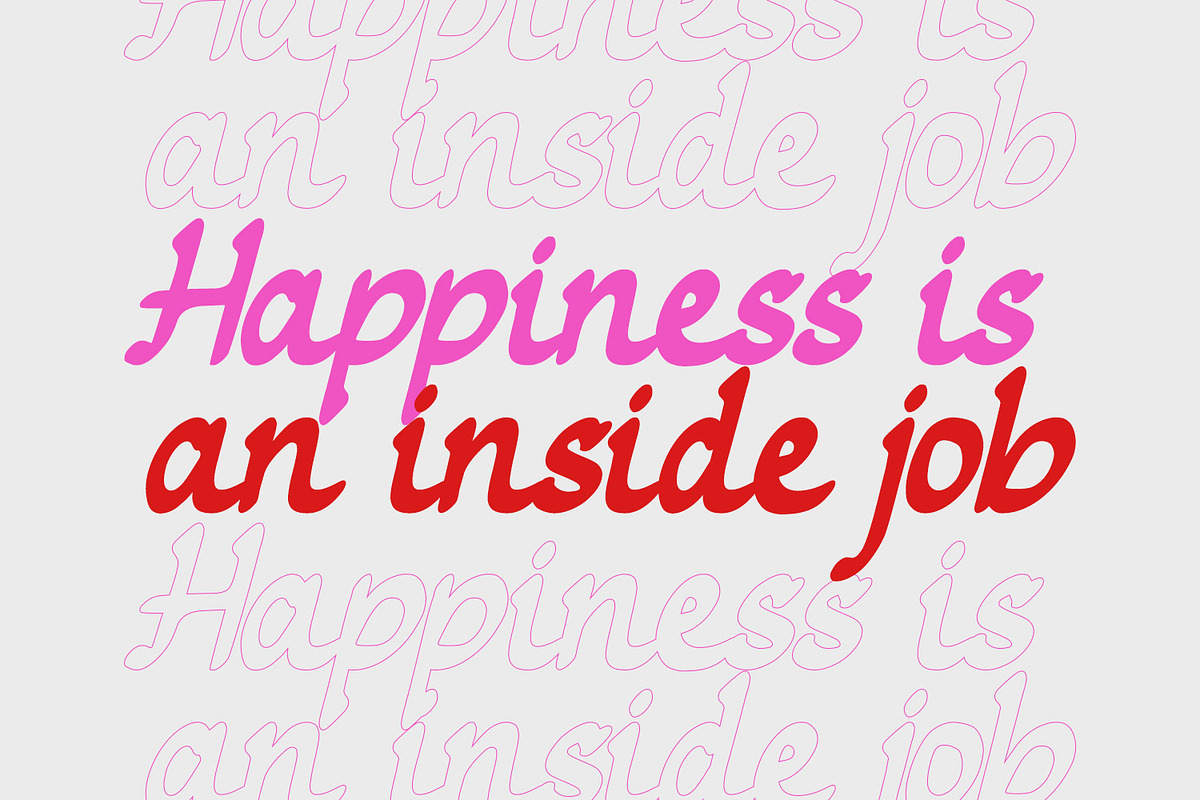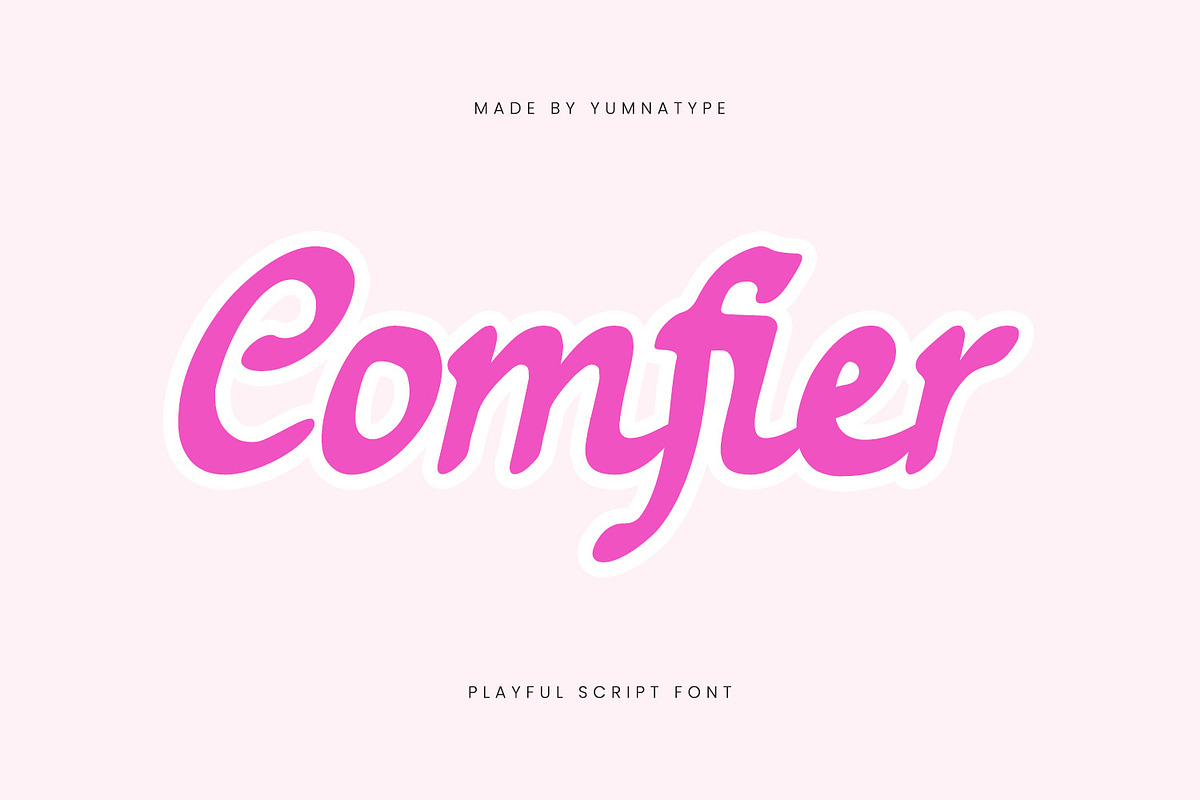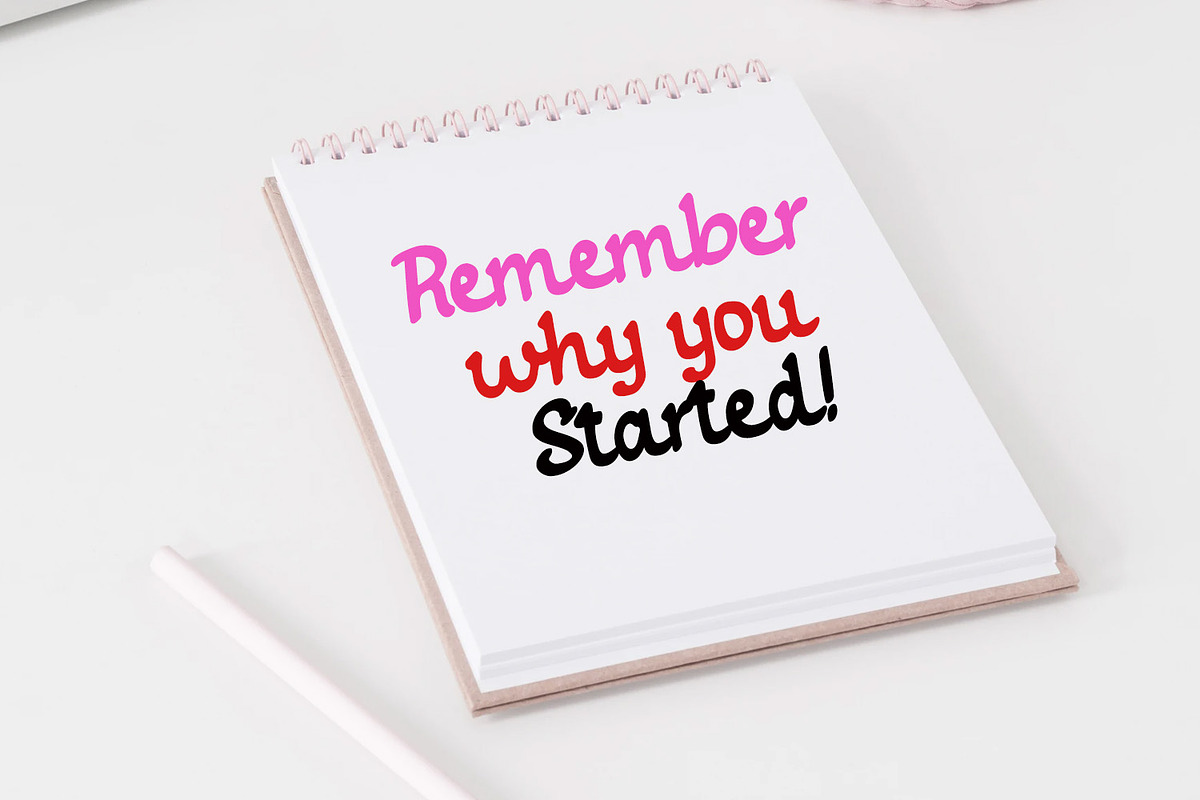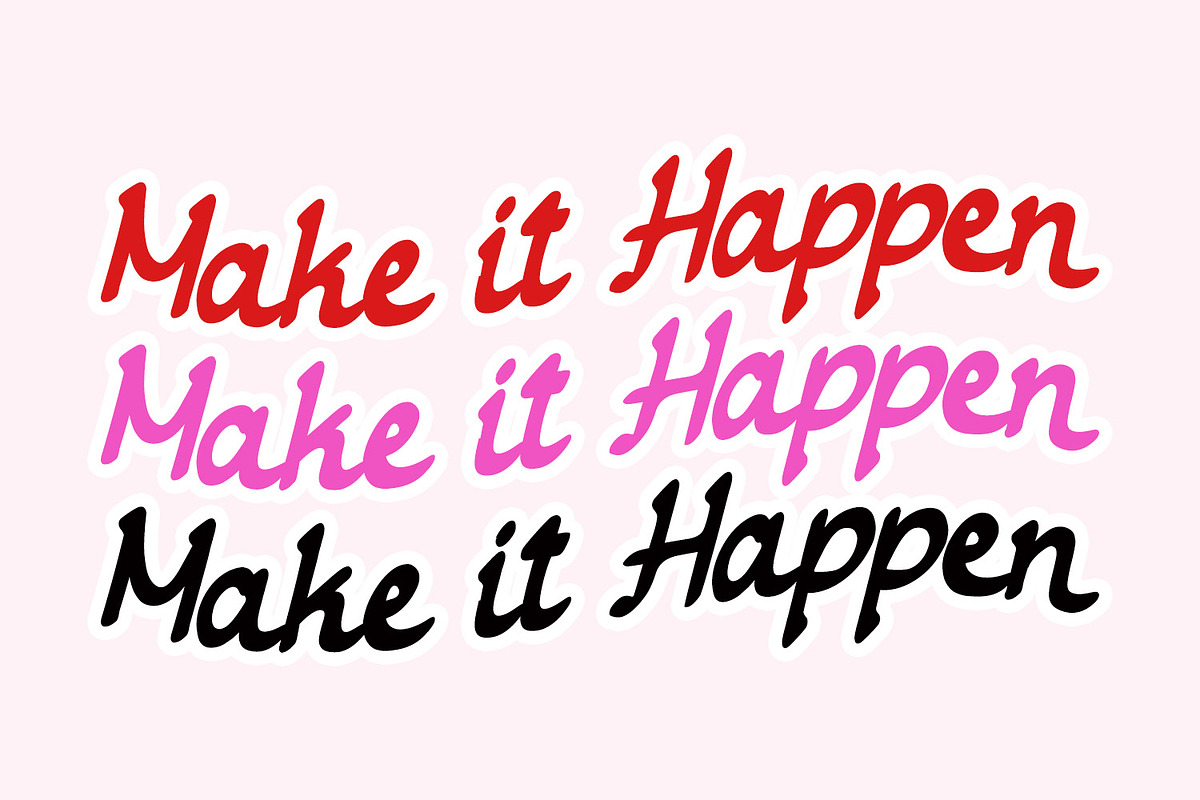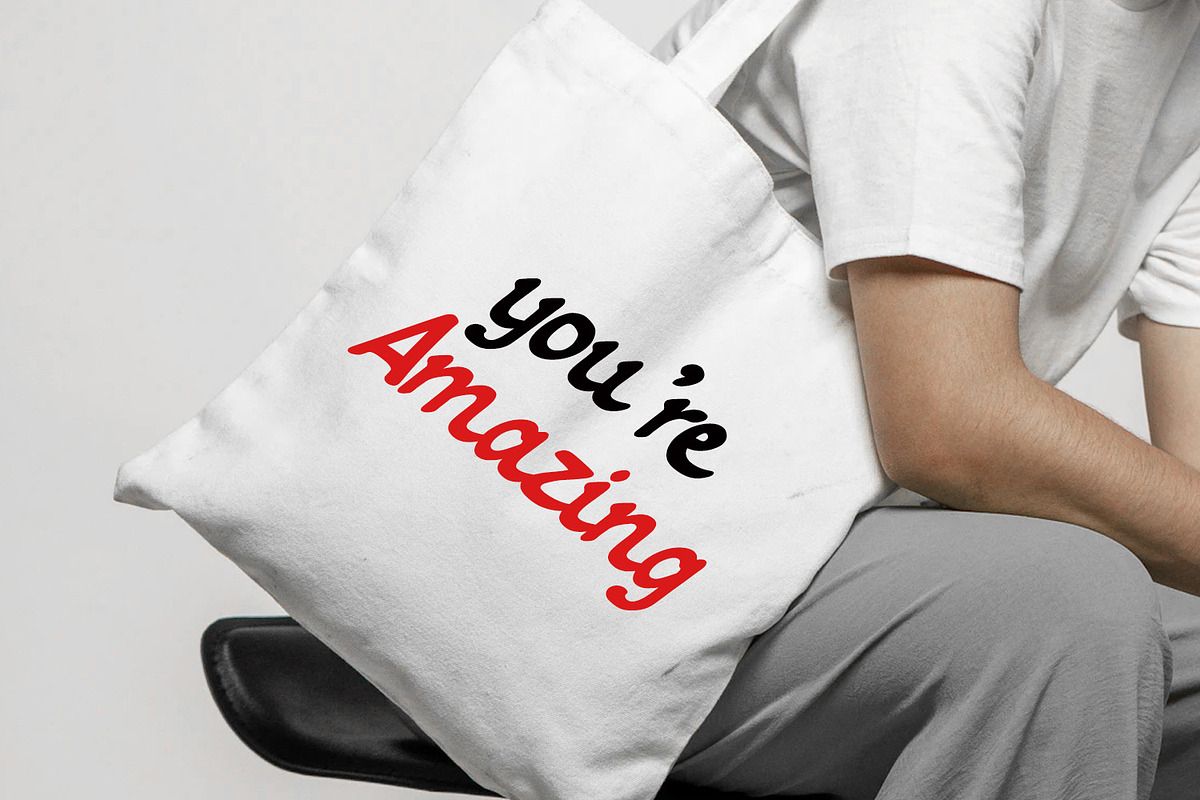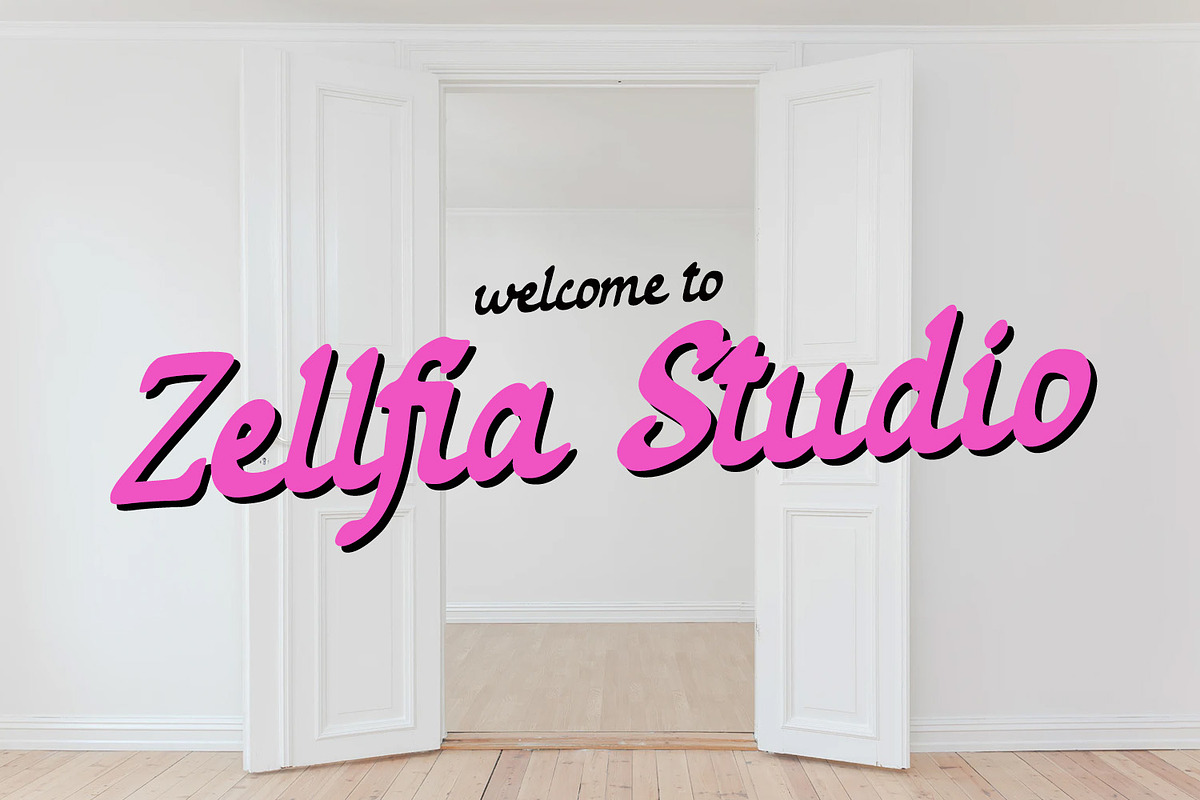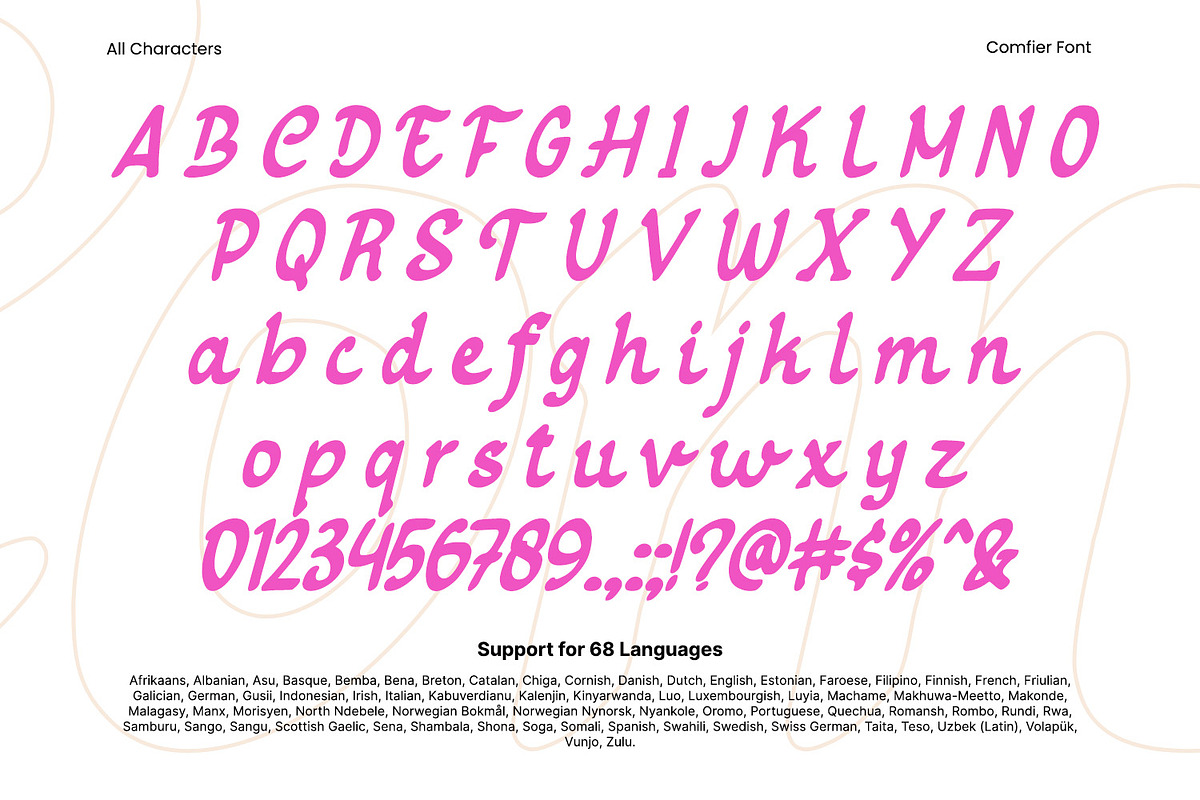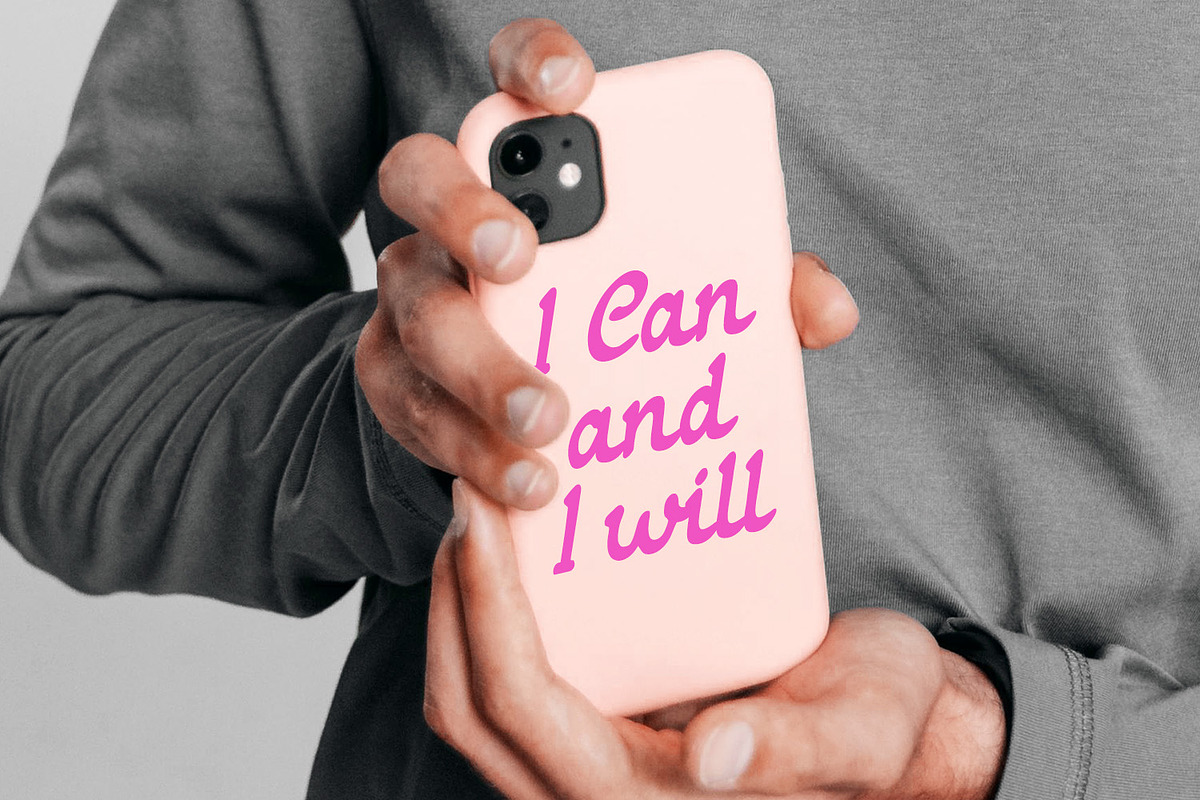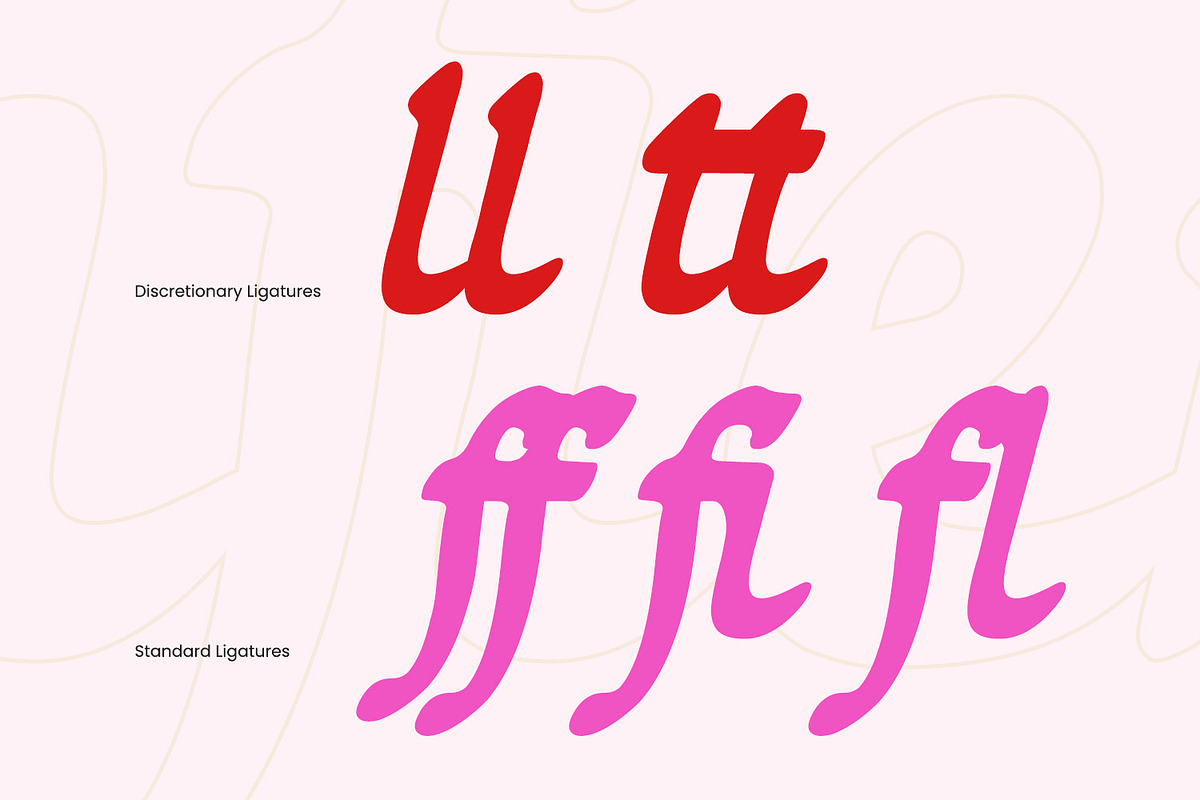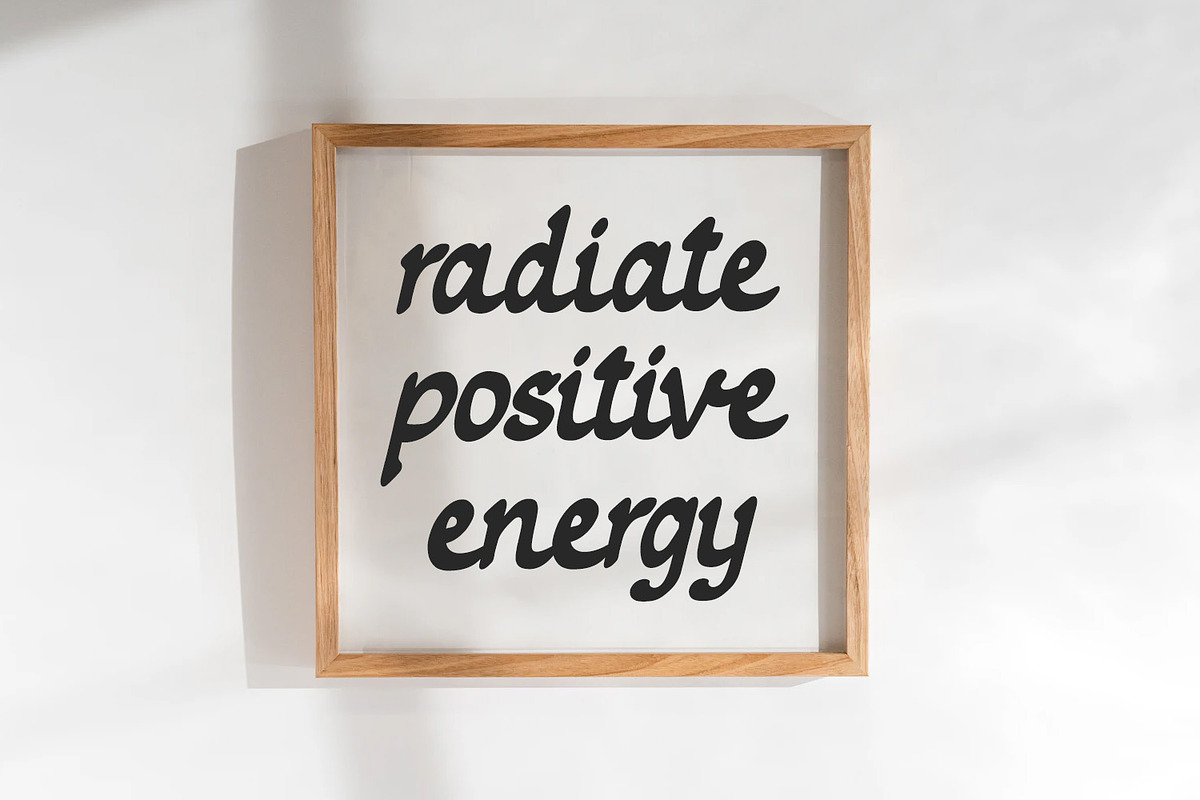
Comfier
Comfier is a delightful script font that exudes a playful charm. The font's whimsical style and gentle curves make it perfect for a variety of creative applications. The not-too-thick weight of Comfier ensures that it maintains an airy and elegant appearance. Despite its playful nature, the font retains a sophisticated look that is both inviting and versatile.
With low contrast between the strokes, Comfier achieves a smooth and consistent flow, enhancing readability while maintaining its unique character. In addition, enjoy the features here.
Comfier fits in headlines, logos, posters, flyers, branding materials, print media, editorial layouts, and many more designs. Find out more ways to use this font by taking a look at the font preview.